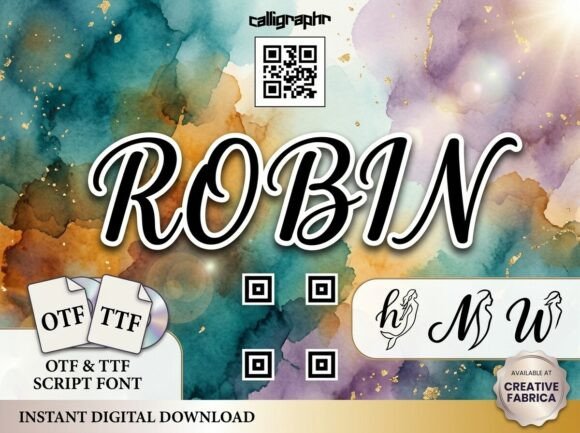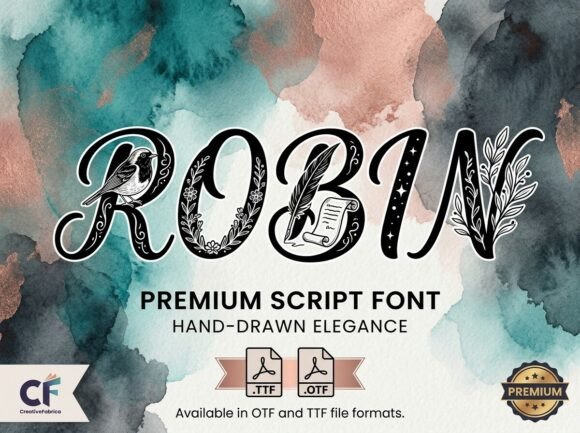
Introduction to Robin Font
As a designer, you know the thrill of staring at a blank canvas, waiting for inspiration to strike. And then, it happens – a spark of creativity ignites, and you envision the perfect font to bring your vision to life. For many of us, that moment is the key to unlocking a high-quality design resource that elevates our creative project to new heights. One such font that has been making waves in the design community is the Robin Font.
With its unique artistic elements and strong visual personality, the Robin Font is the perfect addition to any designer’s toolkit. Whether you’re working on a bold headline, an artistic logo, or creative packaging, this font is sure to make a statement. And the best part? It’s available for download, giving you the freedom to experiment with its transparent background and endless possibilities.
Key Features of Robin Font
- High-quality design resource suitable for creative projects, offering a unique and elegant aesthetic.
- Features a clean and minimalist design, making it an excellent choice for logos, branding, and typography-based projects.
- Designed to be highly legible and versatile, making it suitable for both digital and print-based creative projects.
Honest Review: Robin Font
I recently had the chance to work with the Robin Font, a popular design resource that’s been making waves in the creative community. Overall, I was quite impressed with its high quality and versatility.
- High-resolution graphics make it perfect for print projects
- Transparent background option allows for seamless integration into various designs
- Extensive character set and font sizes make it suitable for a wide range of creative projects
One area where the Robin Font falls short is its limited customization options. As a designer, I appreciate being able to tweak and personalize my design resources to fit my unique style.
Additionally, the font’s functionality could be improved with more comprehensive documentation and tutorials.
Overall Impression
Despite its limitations, the Robin Font is a solid design resource that’s definitely worth considering for your next creative project. Its high quality and free download option make it an attractive choice for designers on a budget. With a bit more development and refinement, I’m confident that the Robin Font will become an indispensable tool in many designers’ arsenals.
Getting the Most Out of Robin Font
For optimal results, use the Robin Font in combination with other design elements. Experiment with different font sizes, colors, and arrangements to achieve a unique design.
The Robin Font is suitable for a variety of projects, including invitations, social media graphics, and branding materials. Its high-quality design makes it an excellent choice for creative projects.